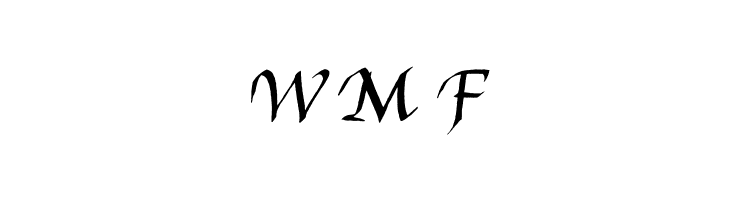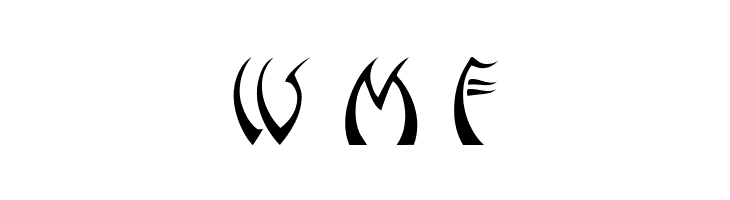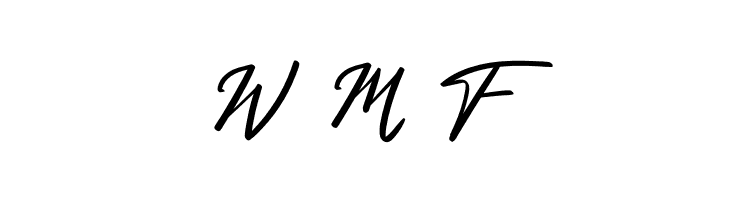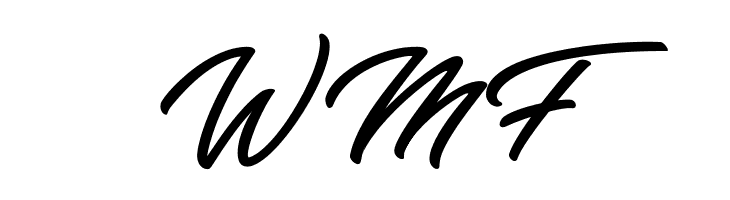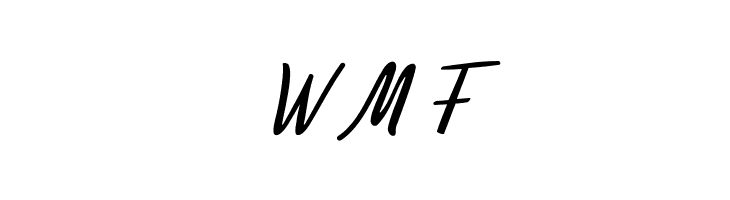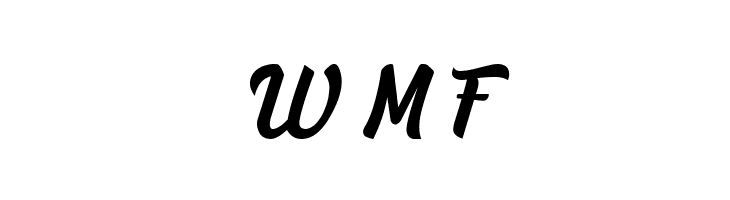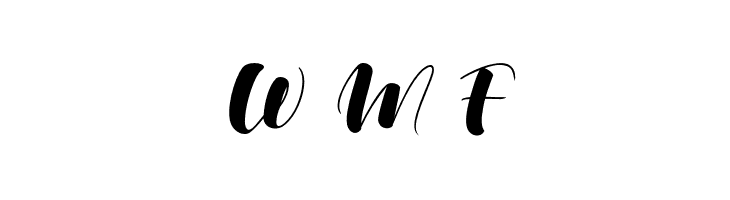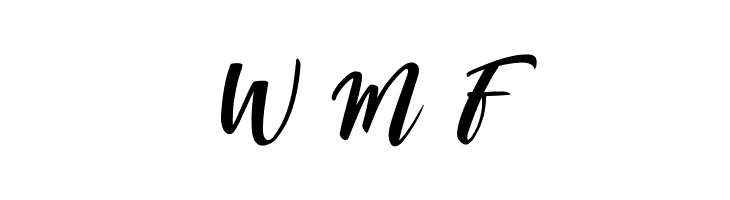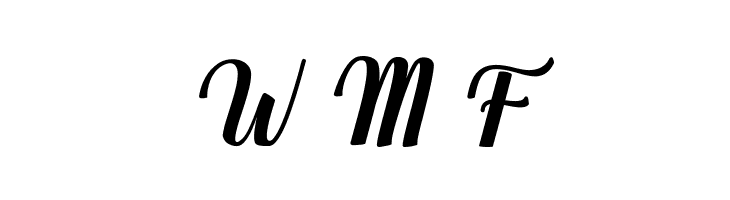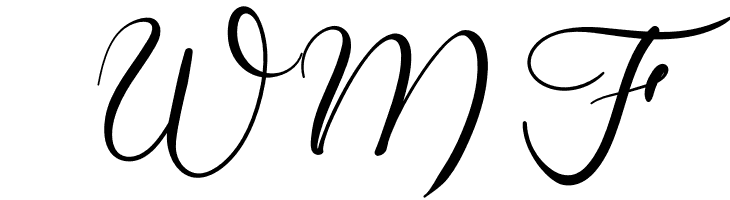
A bold, expressive script font with sweeping curves and high contrast.
A graceful and elegant script font with fluid, sweeping curves.
An elegant, cursive font with intricate loops and sweeping curves.
A fluid, cursive script font with elegant, sweeping strokes.
A dynamic cursive font with bold, sweeping strokes and elegant curves.
A bold and dynamic script font with elegant, sweeping curves.
A bold, cursive font with dynamic, sweeping strokes and a brush-like appearance.
A bold, cursive font with elegant, sweeping curves and high contrast.
A bold, dynamic font with sweeping curves and sharp edges, perfect for impactful designs.
A flowing, cursive font with elegant, sweeping strokes and a handwritten appearance.
A dynamic, energetic font with bold, sweeping strokes and jagged edges.
A flowing, cursive script with elegant, sweeping strokes and a romantic feel.
A flowing, cursive script font with elegant, sweeping forms and playful flourishes.
A bold, dynamic font with sweeping strokes and a modern calligraphic style.
A bold, brush-style font with dynamic, sweeping strokes and artistic flair.
A decorative, hand-drawn font with bold, sweeping strokes and intricate details.
A classic, elegant script font with sweeping curves and ornate details.
A dynamic, windswept font with sweeping curves and sharp edges.
A bold, calligraphic font with expressive, sweeping strokes.
A flowing, cursive font with elegant, sweeping strokes and a handwritten appearance.
A flowing, cursive font with elegant, sweeping lines and ornate uppercase letters.
A dynamic, cursive font with elegant, sweeping strokes.
A modern blend of Roman and Uncial styles with bold, sweeping curves and sharp serifs.
A bold, dynamic font with a modern-vintage flair and sweeping strokes.
A flowing, cursive font with elegant, sweeping strokes and a dynamic slant.
A dynamic and elegant script font with fluid, sweeping letterforms.
A bold and dynamic brush script font with sweeping strokes.
A fluid and elegant script font with sweeping curves and graceful lines.
A calligraphic and modern font with sweeping curves and intricate details.